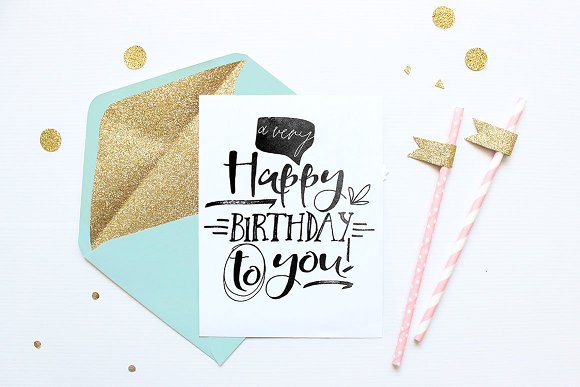
Introduction to Jellybeans Font
Enter the Jellybeans Font, a stunning handcrafted font created by Creativeqube. With its transparent background and delicate design, this font is the perfect addition to any design project. Whether you’re working on a graphic design, a logo, or a digital artwork, the Jellybeans Font is a valuable resource that can elevate your work to the next level. And the best part? You can download it for free, making it an accessible design resource for designers of all levels.
As a valuable design resource, the Jellybeans Font offers a unique opportunity for designers to add a touch of elegance and sophistication to their work. Its high-quality design and transparent background make it perfect for a wide range of creative projects, from branding to digital art. With the Jellybeans Font, the possibilities are endless, and the creative potential is limitless.
Key Features of Jellybeans Font
- Unique, playful design suitable for creative projects and children’s content
- Transparent background allows for easy customization and layering in design projects
- Designed to be highly legible and visually appealing at various sizes, from small to large
Honest Review: Jellybeans Font
I recently stumbled upon the Jellybeans Font while searching for a free download to enhance my design project. The font caught my attention due to its unique style and creative feel. As a designer, I appreciate high-quality fonts that can elevate a project.
What works well: ✨ The Jellybeans Font offers a transparent background, making it easy to use on various design backgrounds. The font’s playful and whimsical style is perfect for creative projects, such as children’s books, party invitations, and more.
- Unique and creative style
Limitations: ⚠️ The Jellybeans Font is limited in terms of its versatility. It’s primarily designed for casual and creative projects, which may not be suitable for professional or corporate designs. Additionally, the font may not be as readable at smaller font sizes.
Overall, I’m impressed with the Jellybeans Font. It’s a great design resource for those looking for a unique and creative font. While it may have some limitations, it’s a great addition to any designer’s toolkit.
Tips for Getting the Most Out of Jellybeans Font
Use Jellybeans Font on a transparent background to create visually appealing designs. Experiment with different font sizes, colors, and styles to add creativity to your project. This high-quality font is perfect for designing invitations, flyers, and brochures.
Jellybeans Font is commonly used in creative projects such as designing logos, menus, and labels. Its unique design and high-quality features make it an ideal choice for designers looking for a distinctive font to add to their designs.